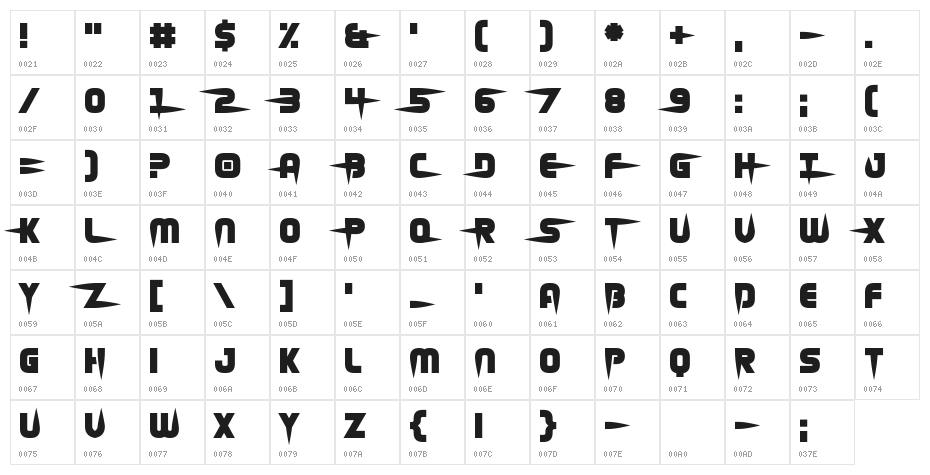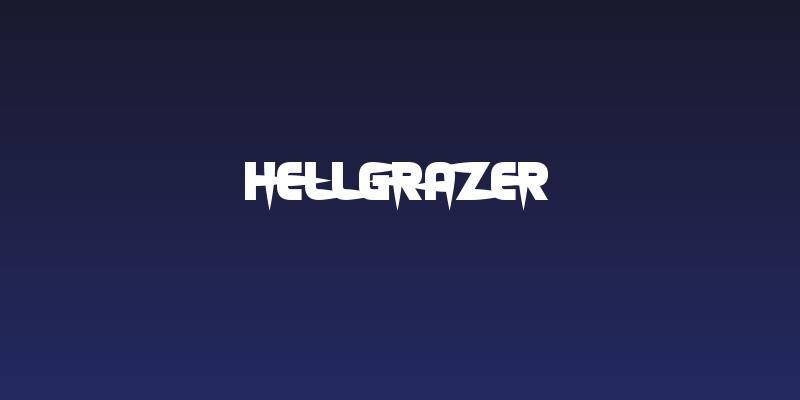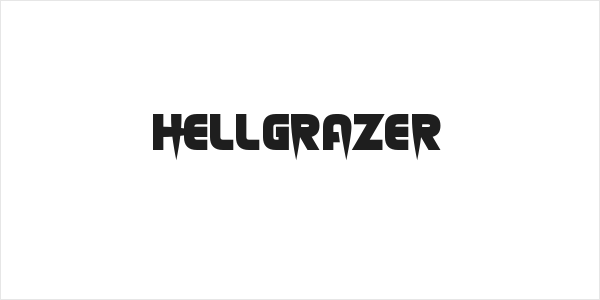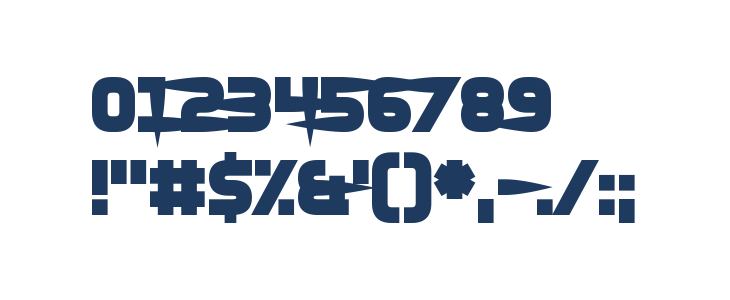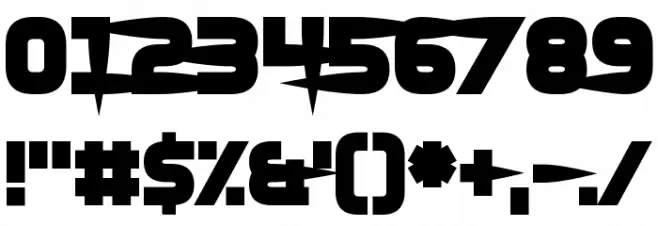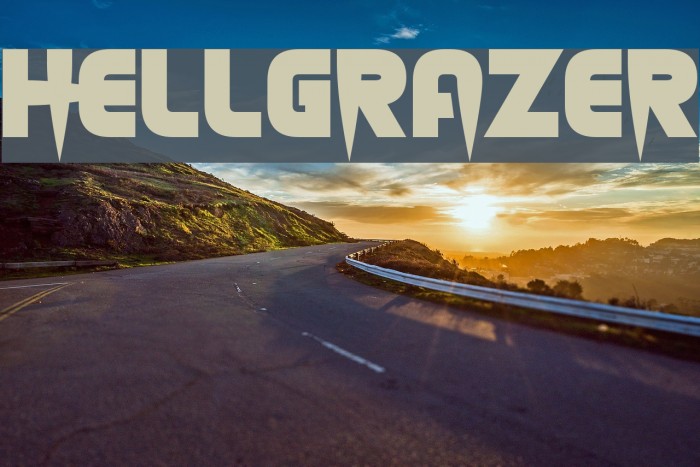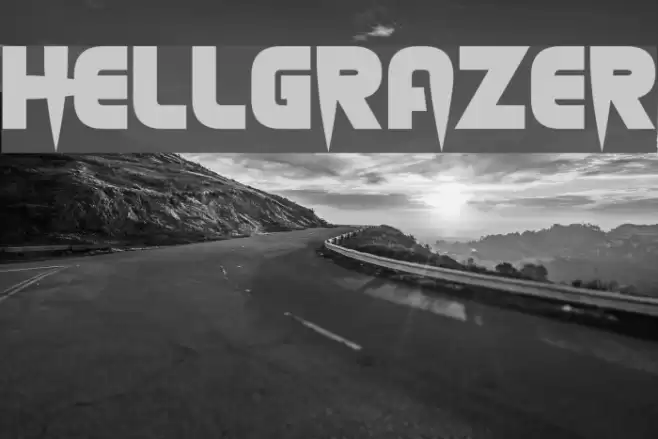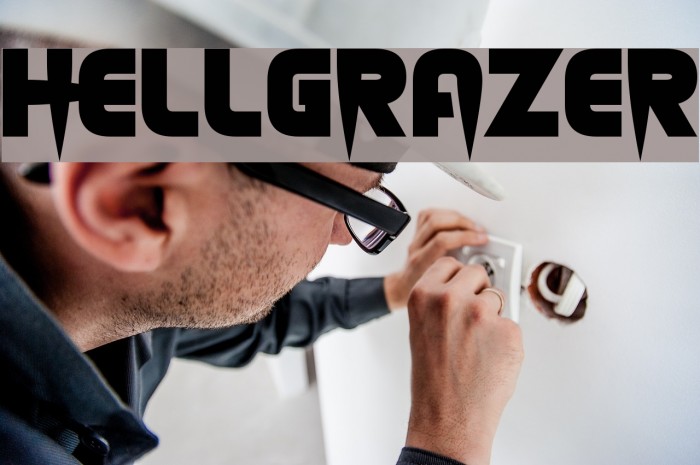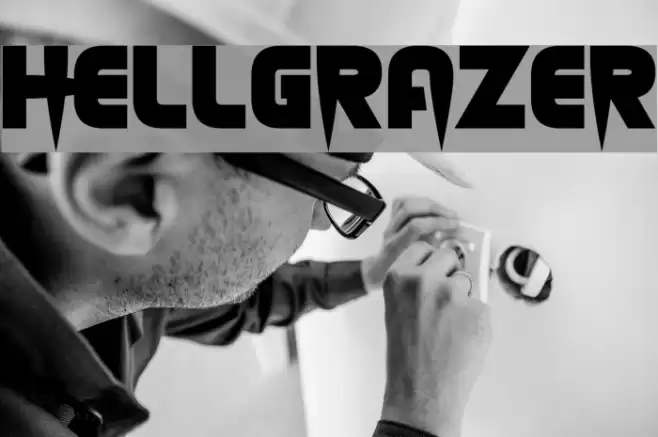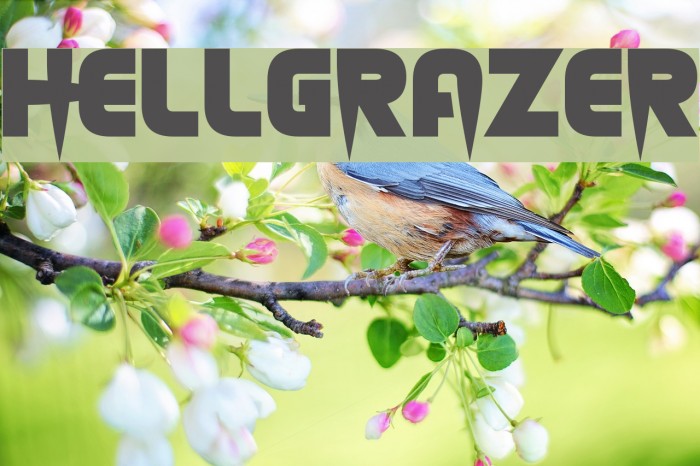
Hellgrazer Font
Hellgrazer Description
This font features a bold and aggressive design with sharp, angular edges that give it a distinct, edgy appearance. The characters are heavily stylized, with exaggerated spikes and cuts that create a dynamic and intense visual impact. The uppercase and lowercase letters maintain a consistent style, with the uppercase being particularly striking due to their larger size and more pronounced angles. Numbers and special characters follow the same design principles, ensuring a cohesive look across all elements. This font is ideal for projects that require a strong, attention-grabbing typeface.
HELLGRAZER UPPERCASE
HELLGRAZER LOWERCASE
HELLGRAZER OTHER CHARS